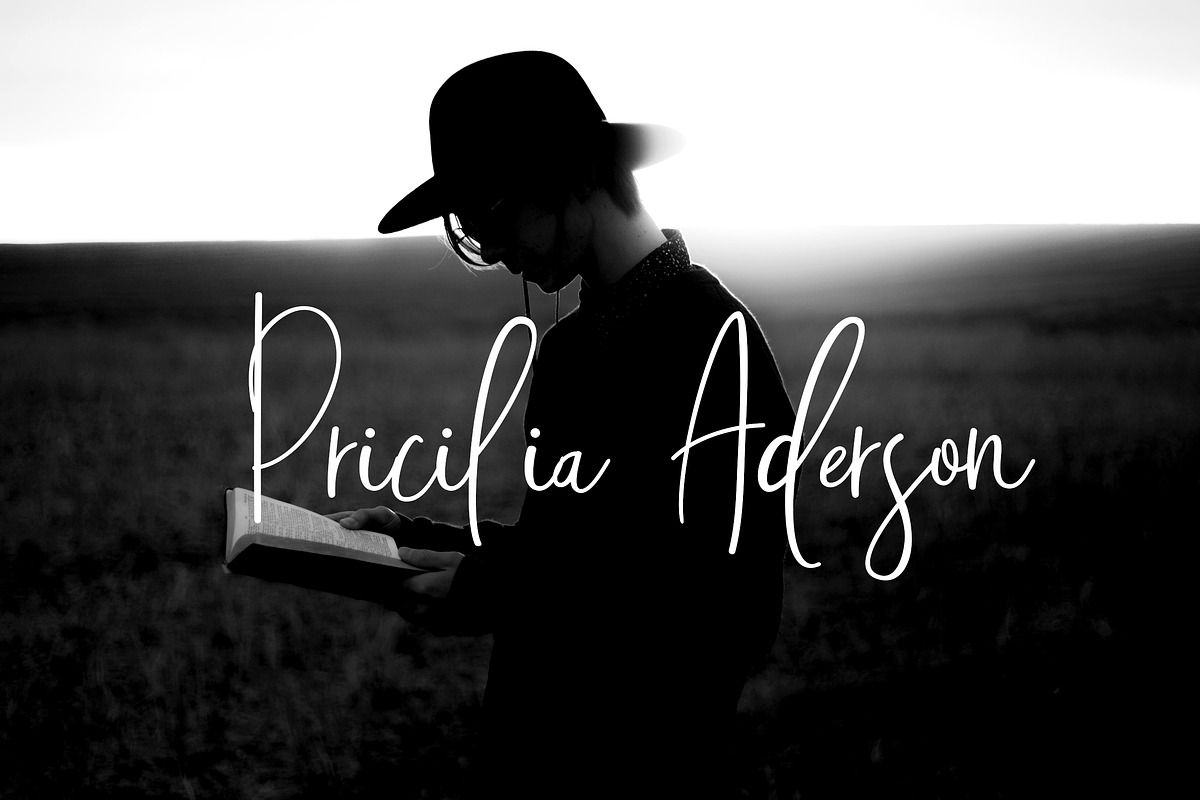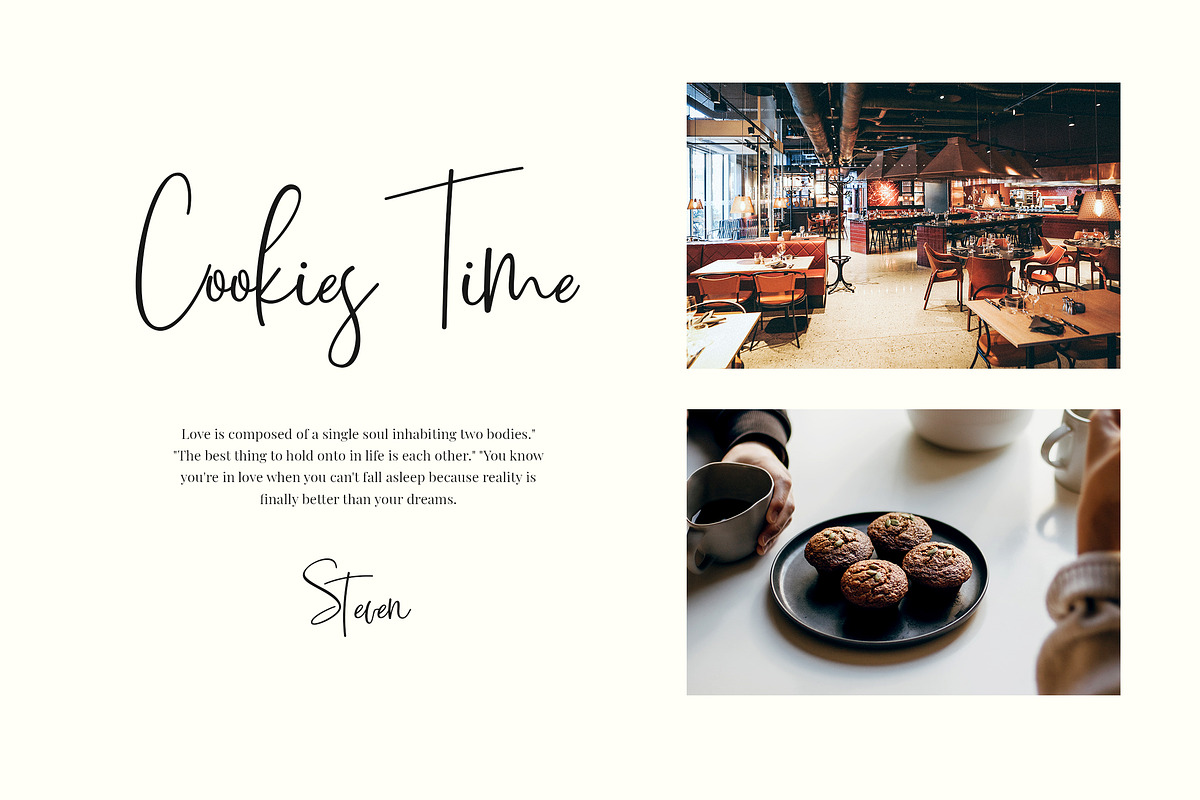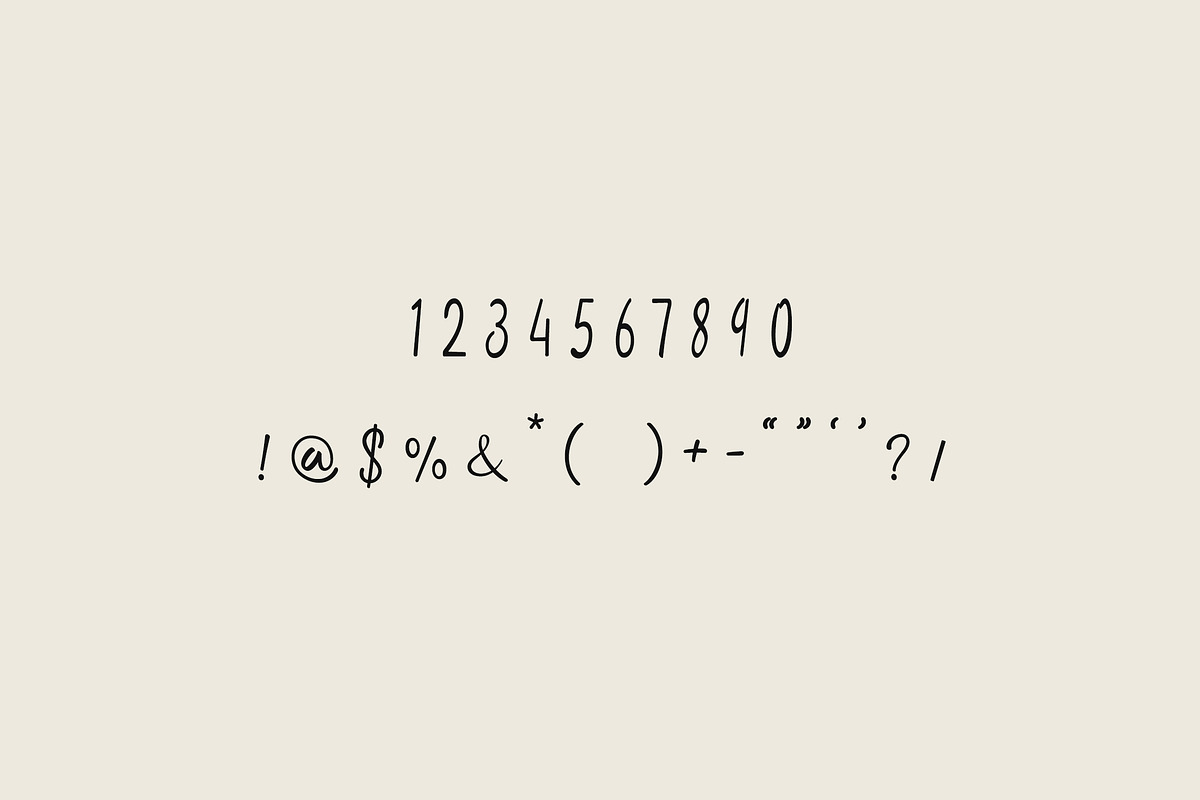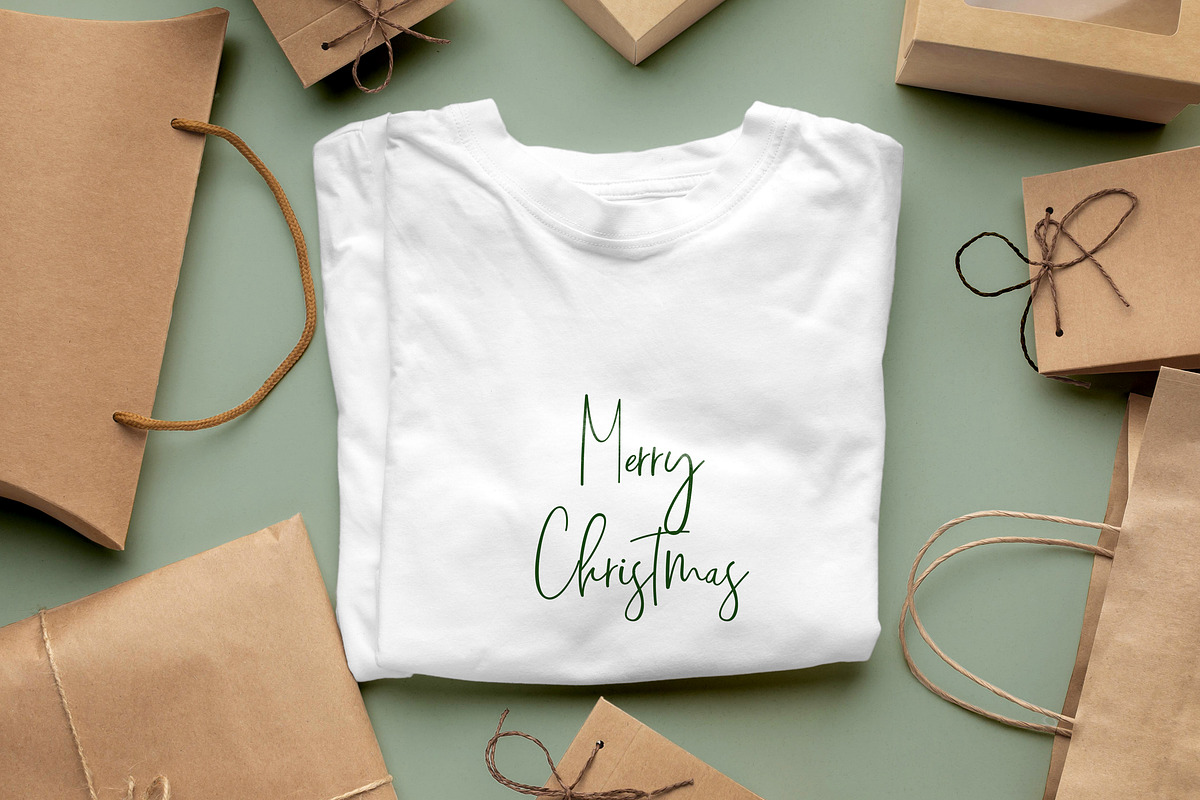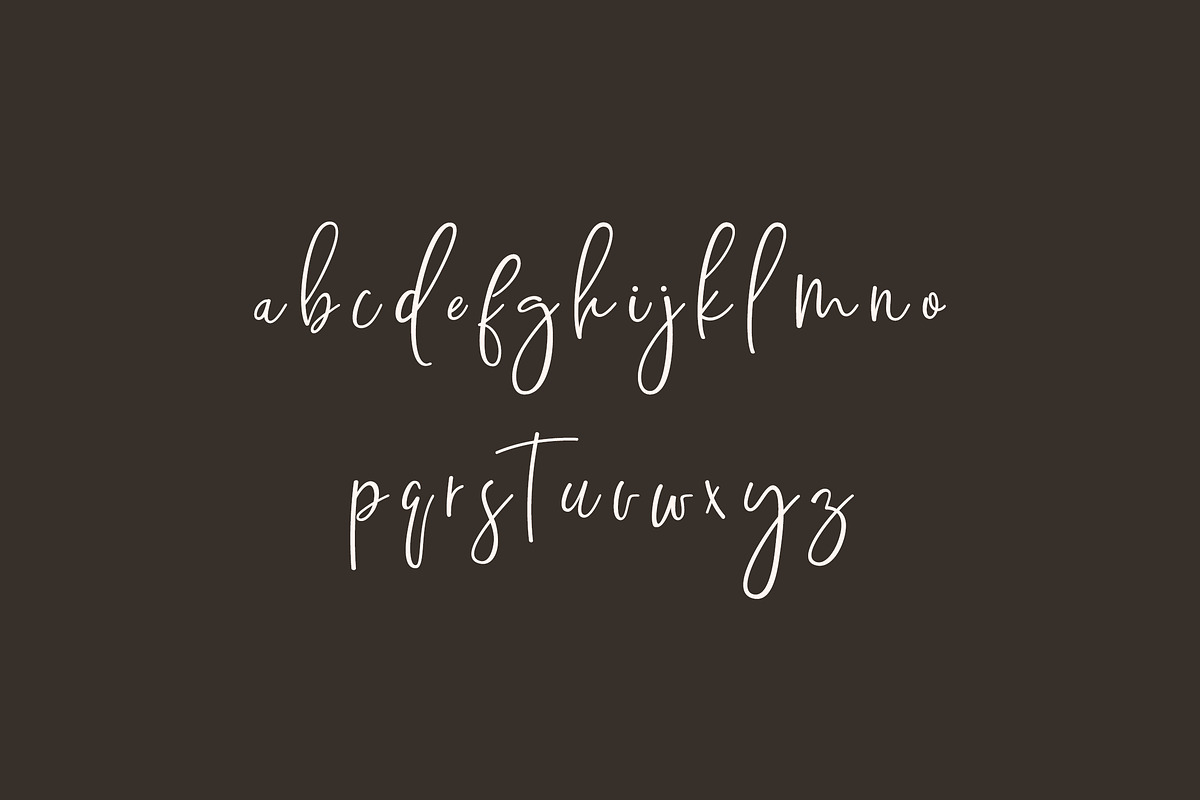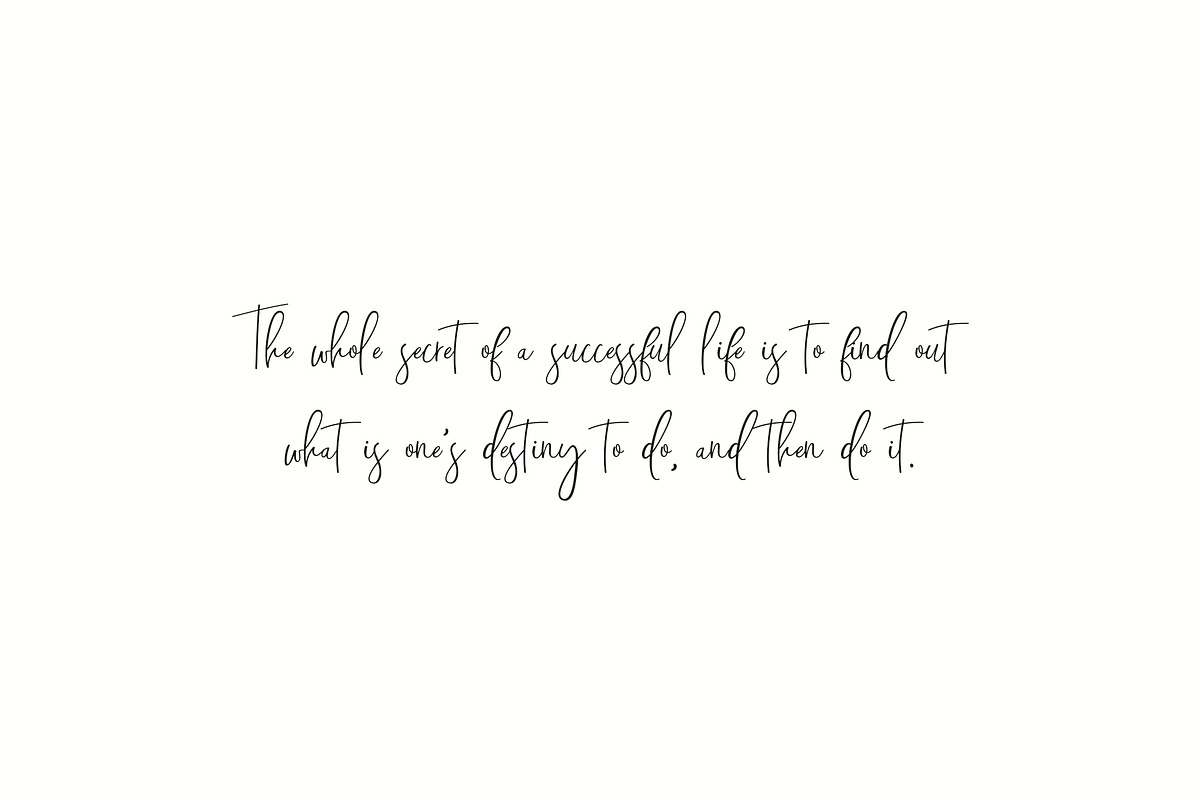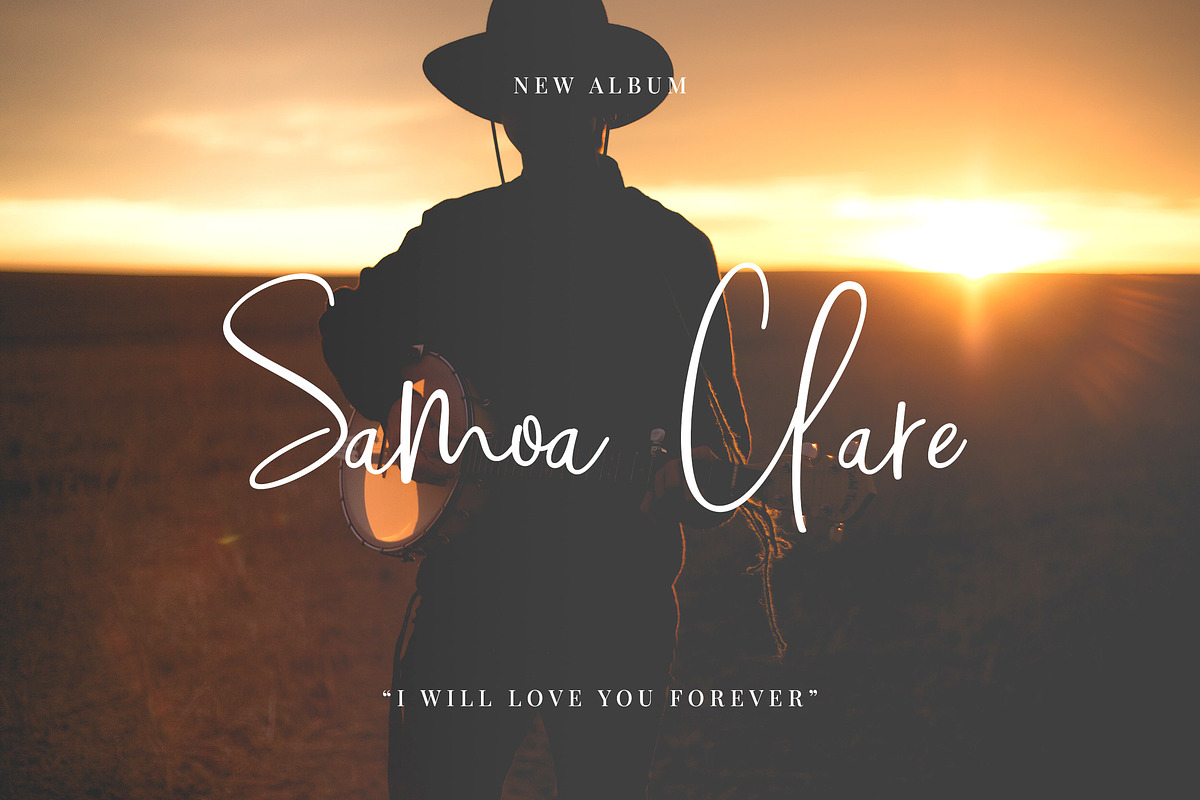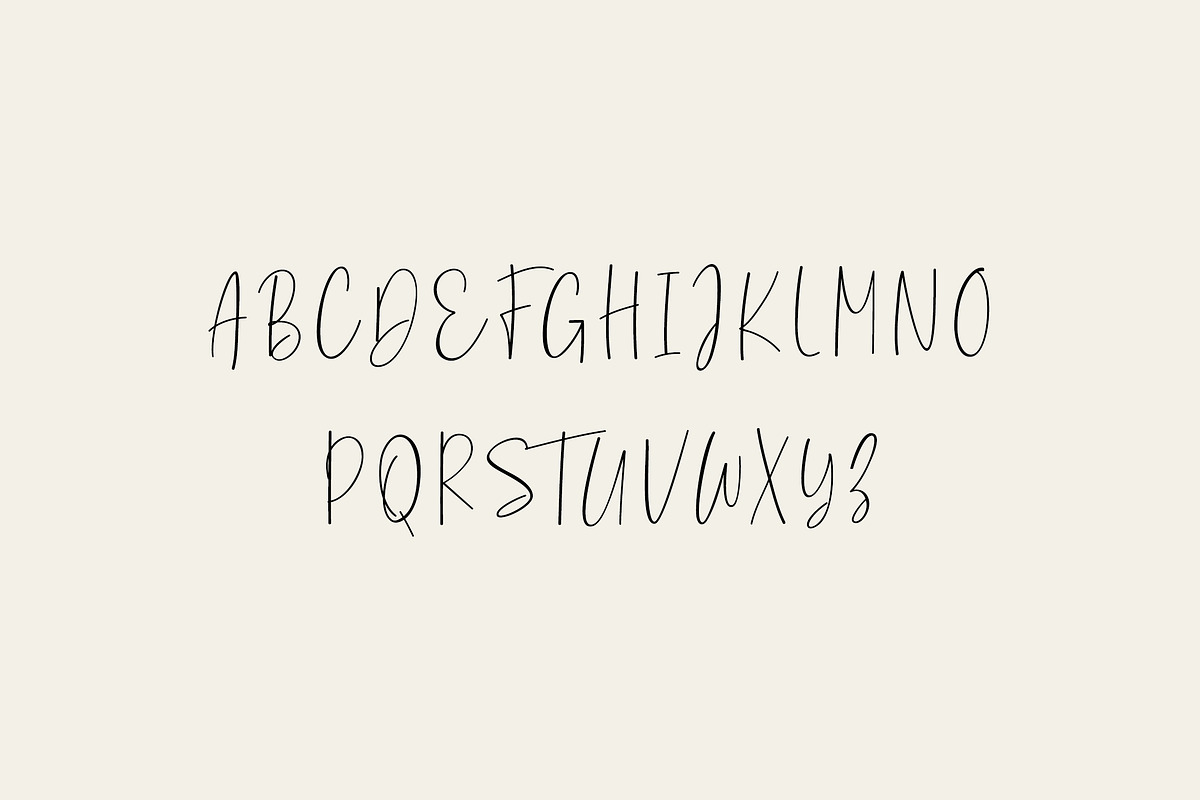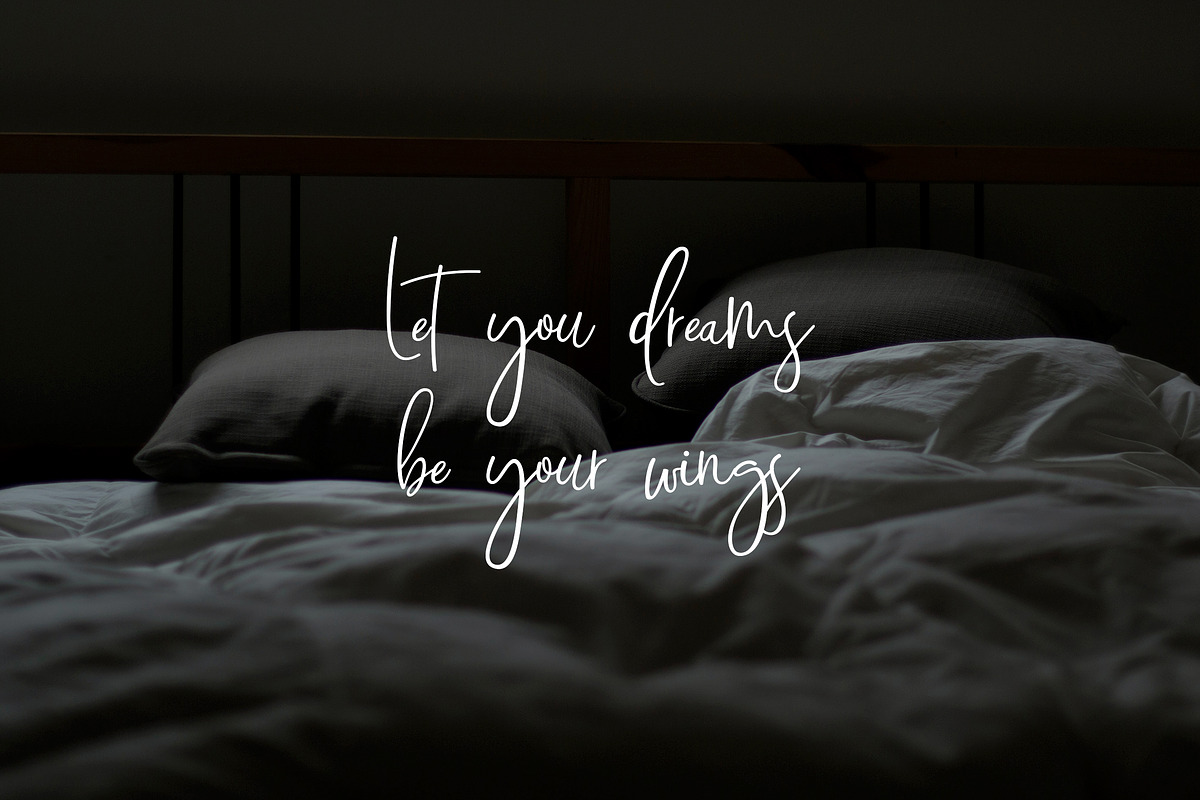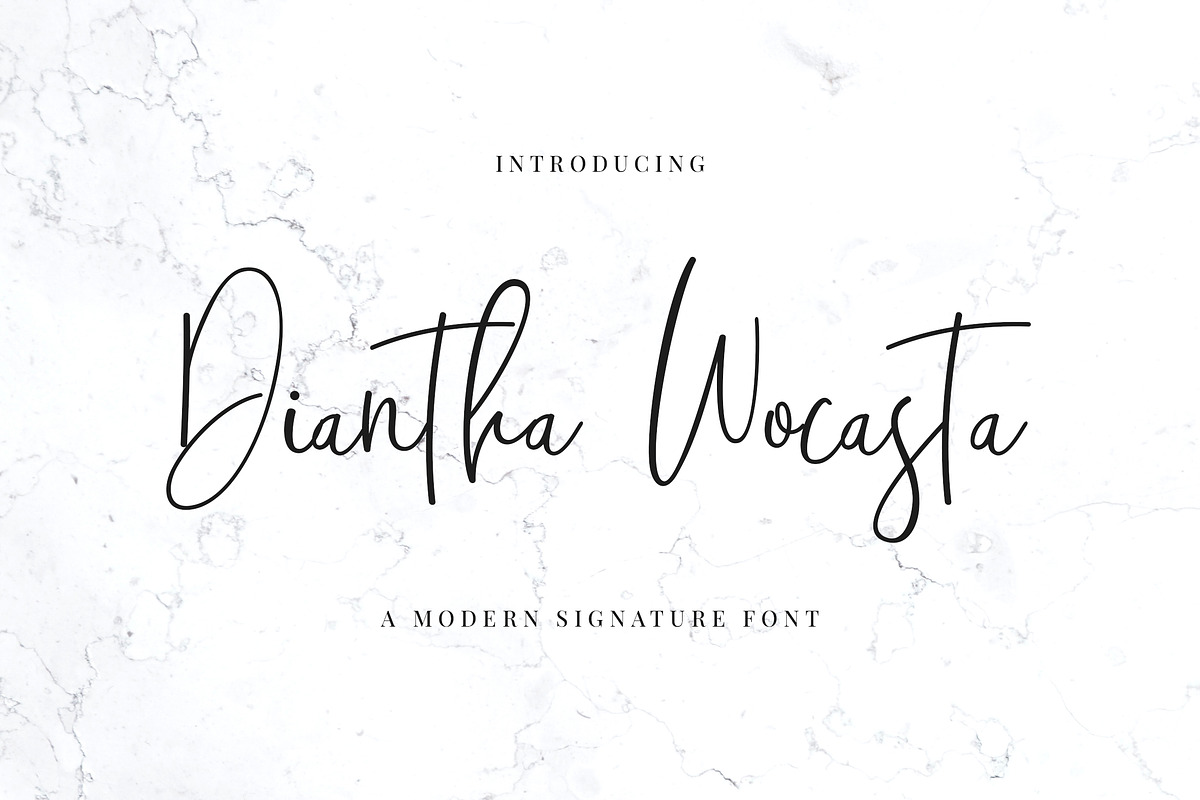
Diantha Wocasta Handwritten Font
Introducing our new product the name is Diantha Wocasta Handwritten Font. Modern Serif font that feels beautiful classy, elegant, and modern. This font is ideally suited for a wide variety of projects, such as signature, stationery, logo, wedding, typography quotes, magazine or book covers, website headers, clothing, branding, packaging design, and more. Also, fashion-related branding or editorial design displays both masculine and feminine qualities.